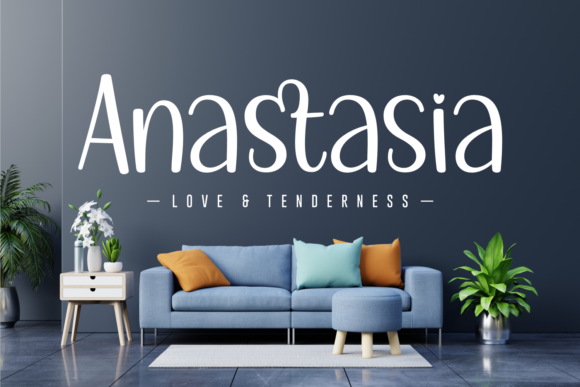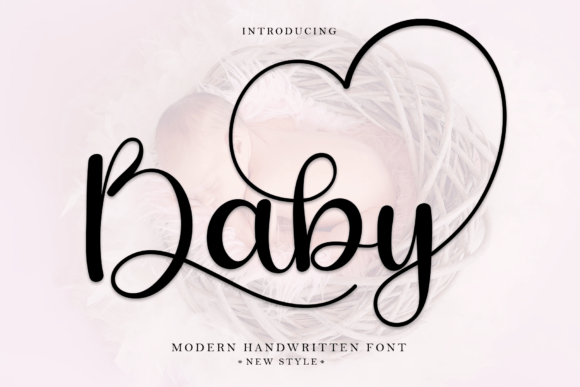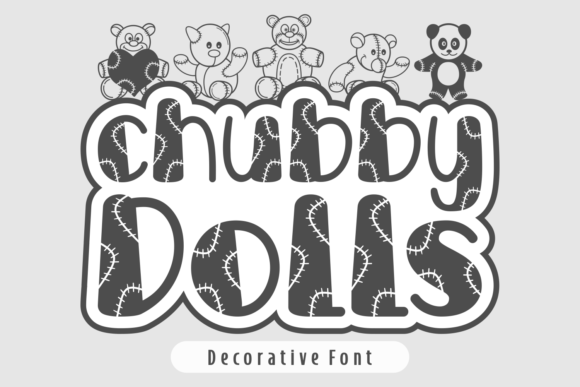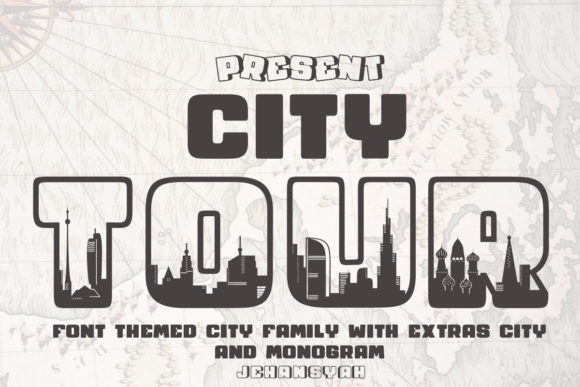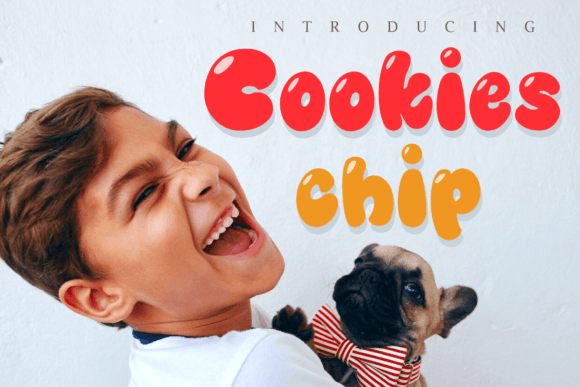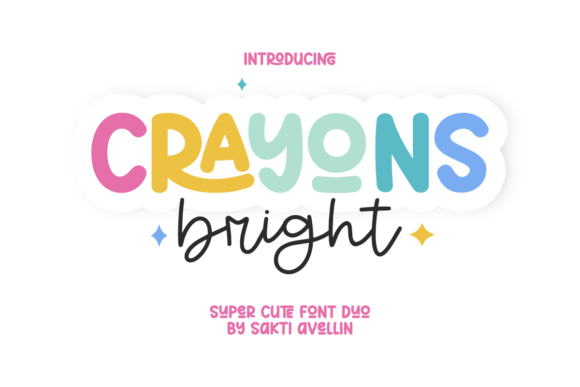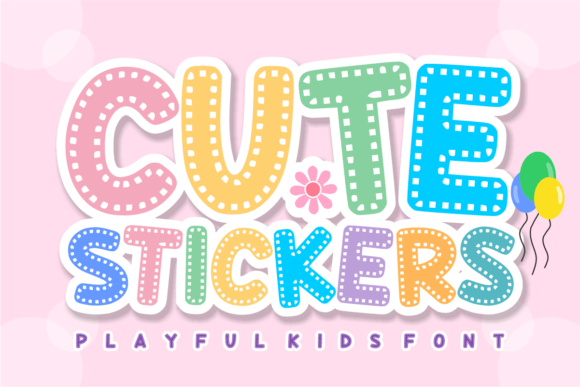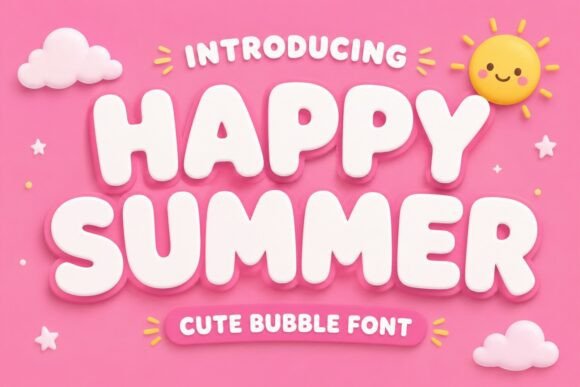
Search for bubble letter fonts and you get several thousand results that look identical in a preview image. Then you type an actual word and half of them fall apart: letters collide, the holes inside the a and the e close up, and what looked bouncy becomes a dark smear. The difference between a bubble font that works and one that does not comes down to about five things, none of which are visible in the sample image used to sell it.
The Five Things That Separate Good From Bad
| What to look for |
Why it matters |
| Wide, open counters |
The holes inside a, e and o stay visible. Without this a word turns into a row of blobs at small sizes. |
| Consistent stroke weight |
Bubble lettering fonts have no thick-to-thin contrast. Variation reads as a mistake, not a style. |
| Rounded terminals |
Every stroke should end in a curve. A flat cut-off ending breaks the illusion instantly. |
| A working lowercase |
Many bubble letter fonts lowercase sets are an afterthought. Check them before the capitals. |
| Room for an outline |
Most are drawn to carry one. If the base shape is already heavy, an outline closes the counters. |
None of these are matters of taste. A font that fails on counters fails on every project, and no amount of colour work rescues it. This applies equally whether you want cute bubble letter fonts for a party invitation or bubble letter fonts graffiti style for a poster.
The thirty second test
Before downloading anything, find the sample image and look for a word containing a double letter and a lowercase e or a. Something like “sweet”, “balloon” or “happy”.
If the designer only ever shows a short word in capitals, the lowercase is usually weak. Good lettering fonts bubble style are shown doing hard work, not easy work.
25 Bubble Letter Fonts Worth Your Time
Sorted by how far each leans into the style, starting with the roundest and softest.
Soft and Rounded
The classic look. Thick, friendly and forgiving at almost any size.
1. Anastasia
Anastasia is a playful and well-rounded handwritten font. This gentle font will look gorgeous on a variety of design ideas. Free download.
2. Play Ink
Play Ink is a chic and bubbly display font. It embodies playfulness and authenticity and is the perfect choice for any children’s activity or school project. Free download.
3. Sugar Peachy
Introducing Sugar Peachy, a font that exudes happiness, uniqueness, and wonders. Free download.
4. Chubby Dolls
Chubby Dolls is a unique and interesting-looking decorative font. Free download.
5. City Tour
City Tour is an incredibly detailed display font with beautiful landscapes of famous cities from around the world and many font styles to choose from such as graffiti, outline, and cloud fonts. Free download.
6. Its Me Hello
The “It’s Me Hello” font duo brings together two distinct yet perfectly complementary styles: a bold display font and an elegant script font. Free download.
7. Baby
Baby is a unique, round lettered handwritten font that was carefully crafted to produce the desired results. Free download.
8. Shortcake Strawberry
Shortcake Strawberry – A Sweet & Playful Font Duo Add a burst of joy and sweetness to your creative projects with Shortcake Strawberry, a delightfully bubbly and hand-drawn font designed to make your designs pop.
9. Kidstypeface
🎈 KidsTypeface – Playful, Bubbly & Bold Kids Display Font 🎈 Bring a splash of fun and energy to your designs with KidsTypeface! Free download.
Chunky and Bold
Heavier weights that hold up as headlines and read from across a room.
10. School Garden
School Garden – Playful Education Display Font Bring joy, energy, and creativity into the classroom with School Garden! Free download.
11. Marly Rosemary
Marly Rosemary is a stylish, well-balanced and delicate script font. Free download.
12. Crayons Bright
Introducing Crayons Bright, a harmonious duo font pairing, deliberately crafted to radiate whimsical charm with vibrant hues.
13. Creative Summer
☀️ Creative Summer – Playful, Bubbly & Colorful Cartoon Display Font ☀️ Make your words shine with Creative Summer! Free download.
14. Satori
Satori is a beautiful, cursive and unique handwritten font. Its distinct and well rounded letters make this font a masterpiece. Free download.
15. Order
Order is a free font created by Mike Hill. The Order font comes in 4 variations: Order Regular Order Light Order Outline Order Rounded Free download.
16. Cute Stickers
✨ Cute Stickers – Playful Stitched Kids Font ✂️ Add a burst of creativity to your projects with Cute Stickers, a delightful display font designed for high-impact fun!
Do bubble letter fonts include a full alphabet?
Most include a complete fonts alphabet bubble letters set with numbers, but some free ones are capitals only. Check the character map before downloading.
What pairs well with a bubble font?
A plain sans serif, always. Bubble lettering carries all the personality a layout needs, so the supporting font should do nothing except stay readable.